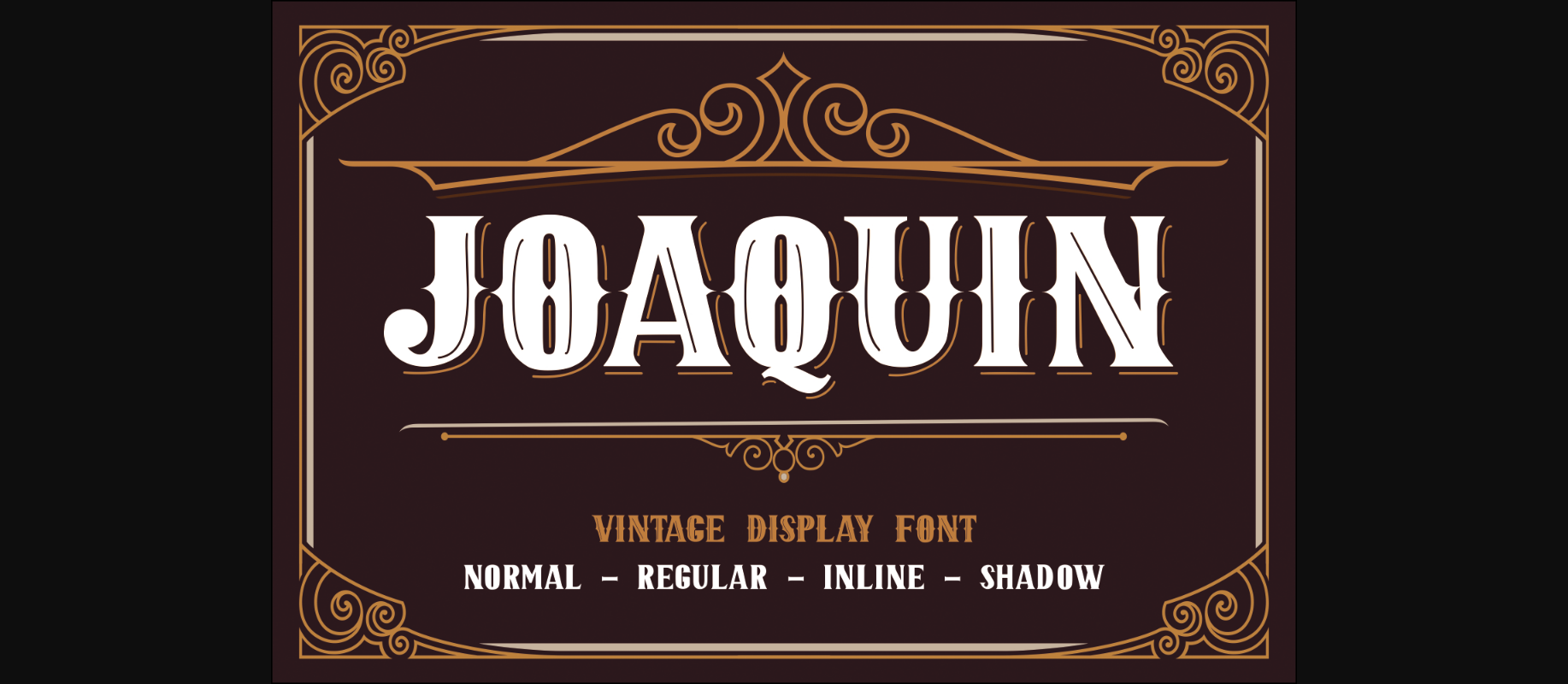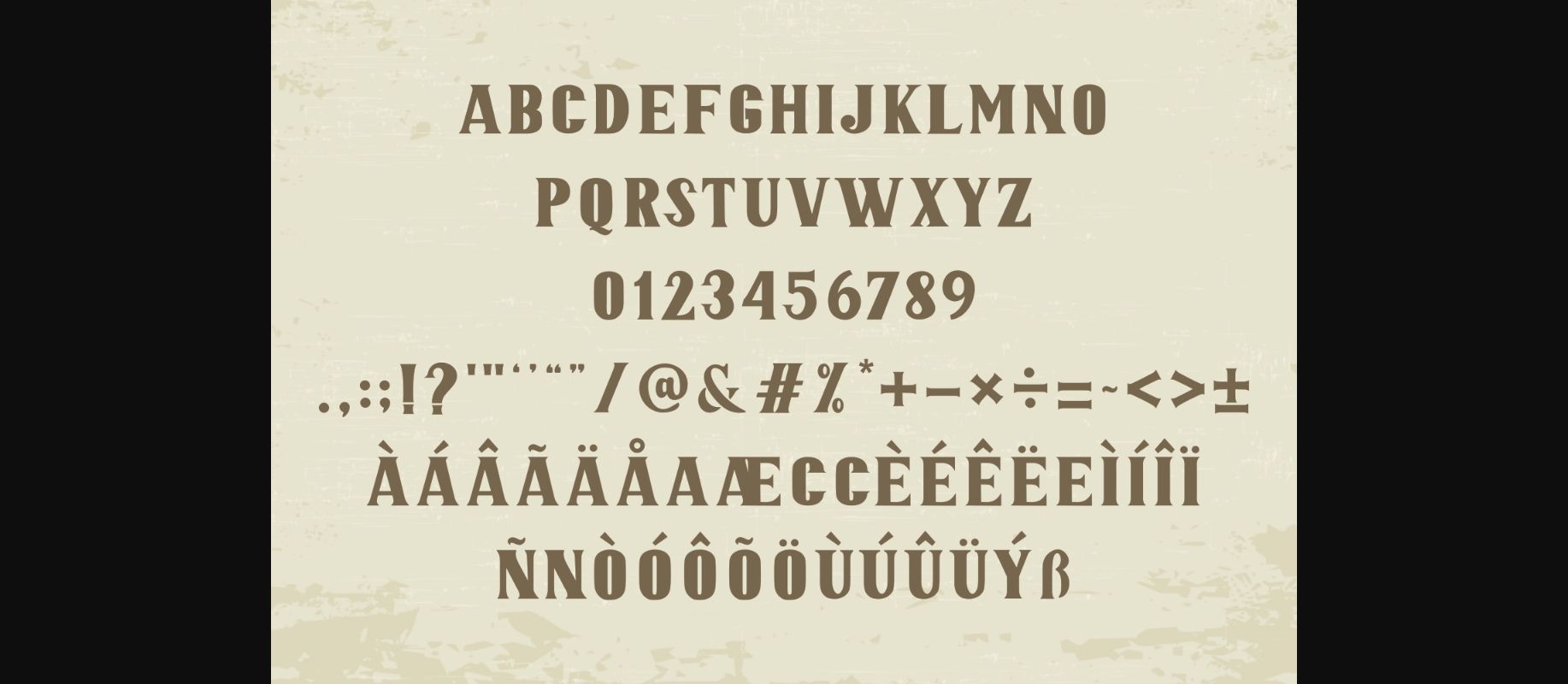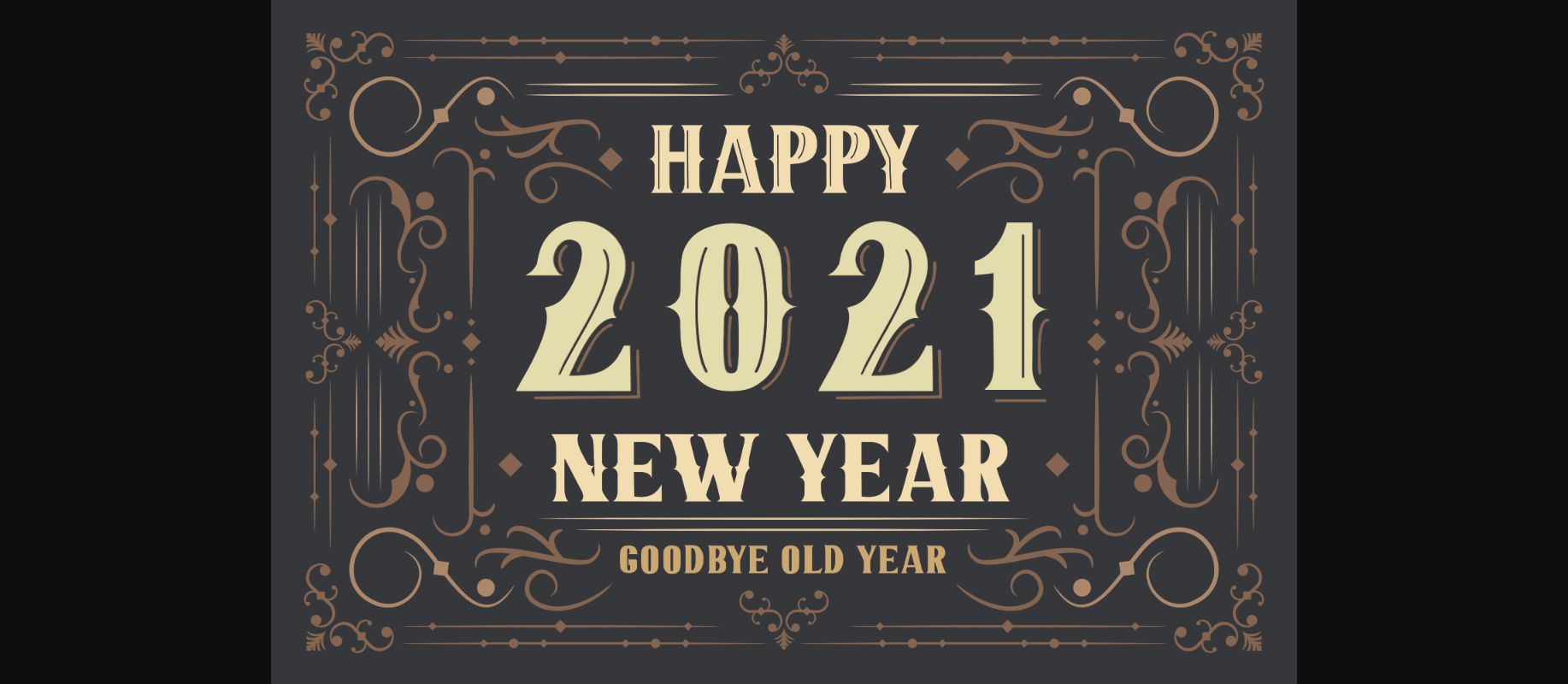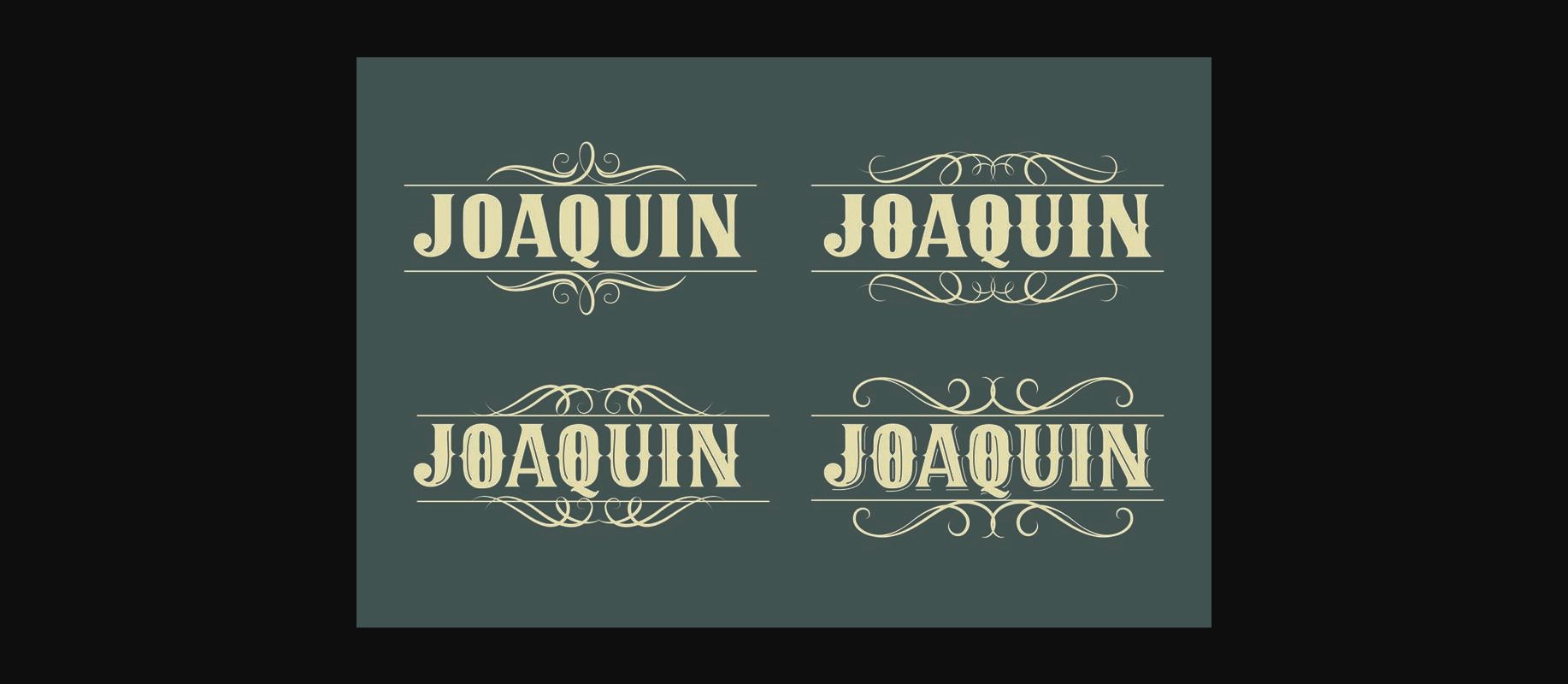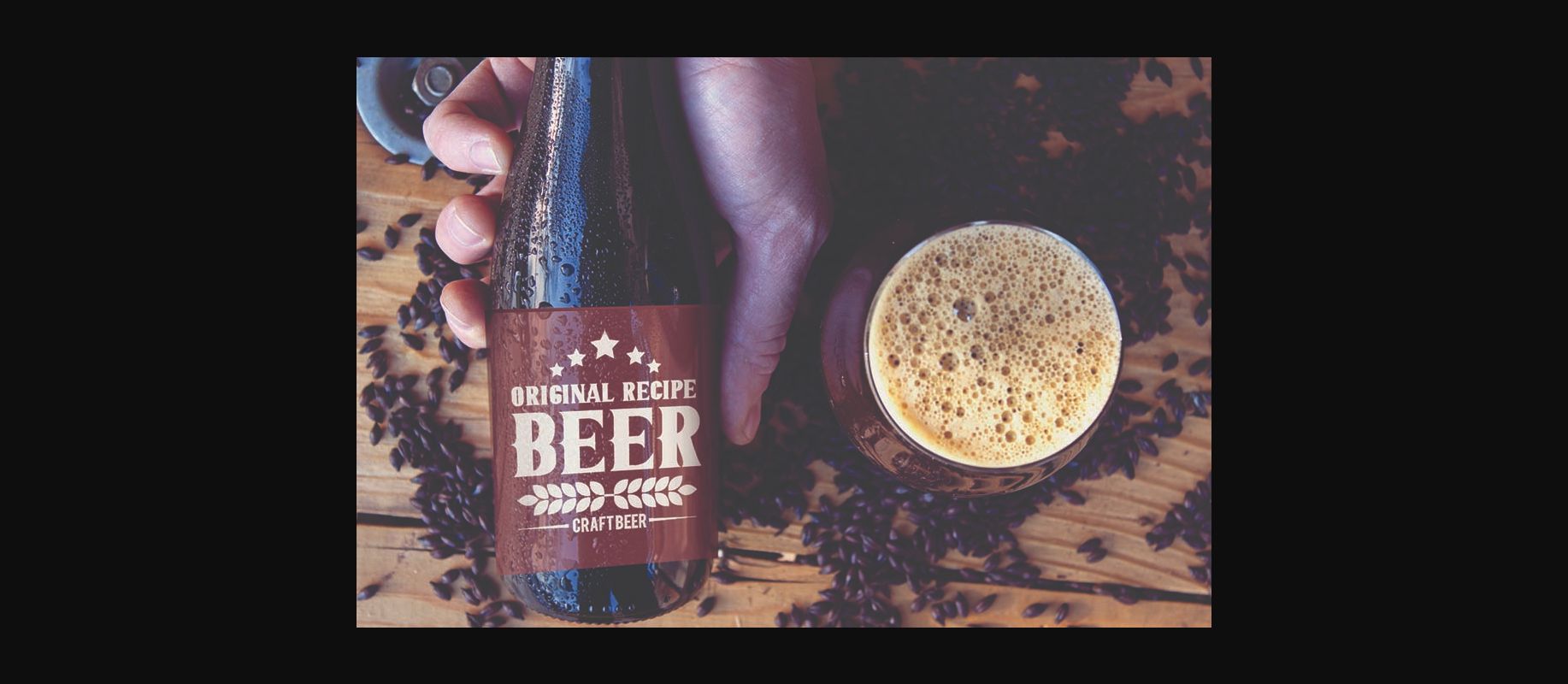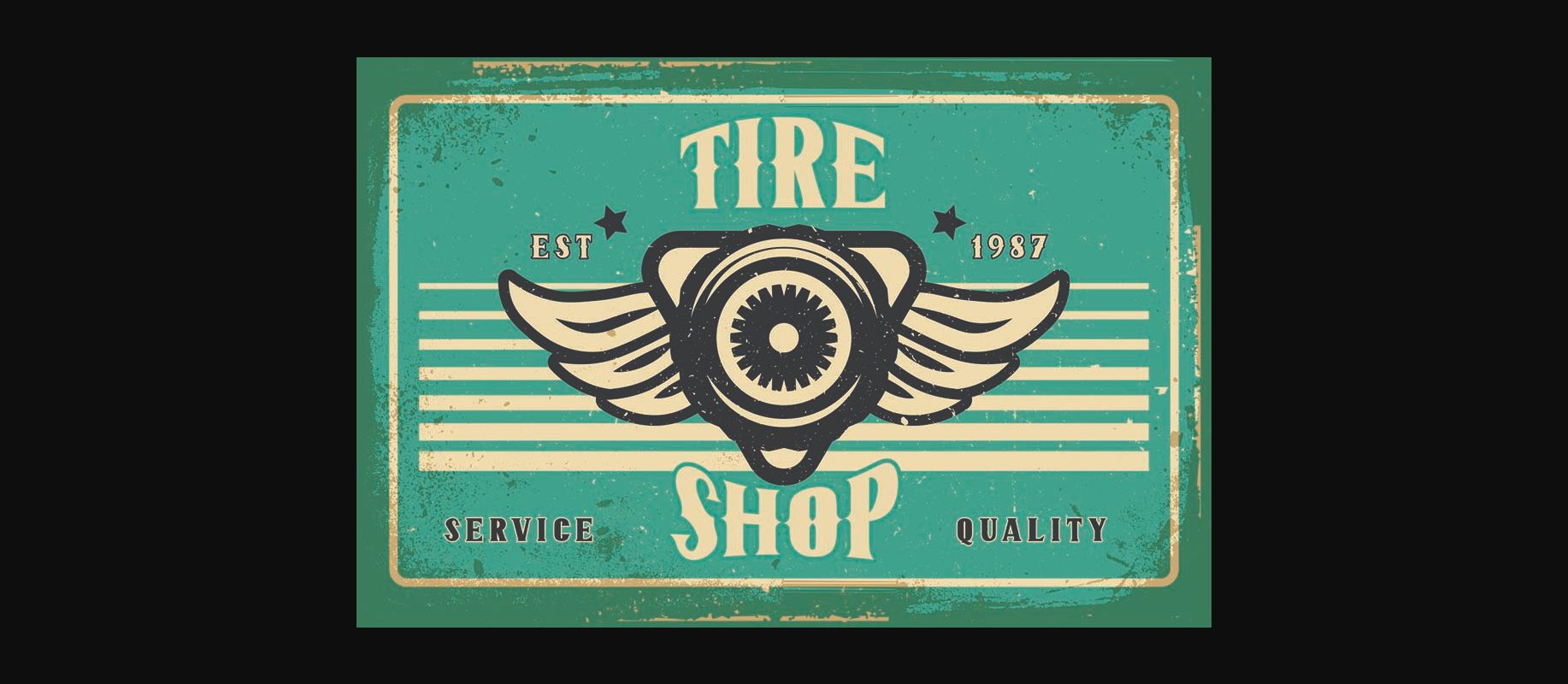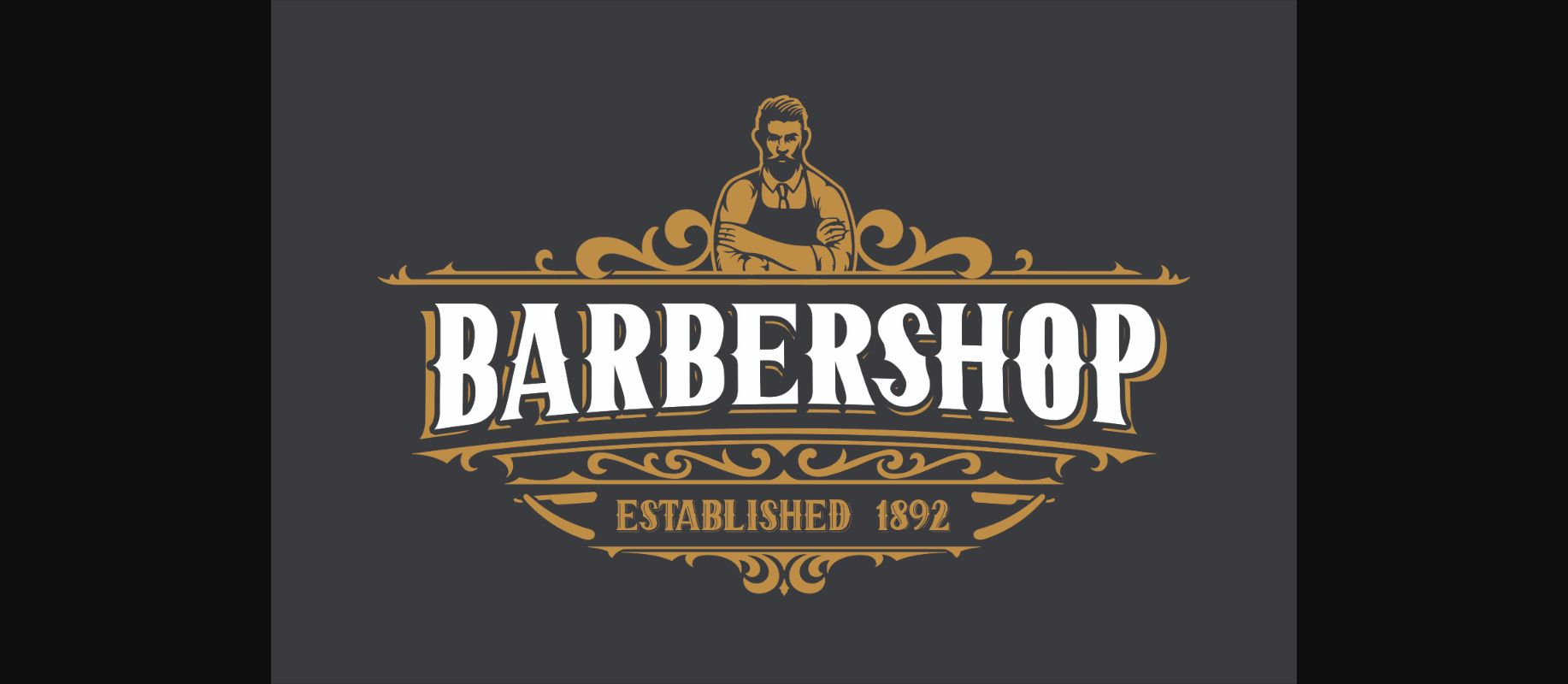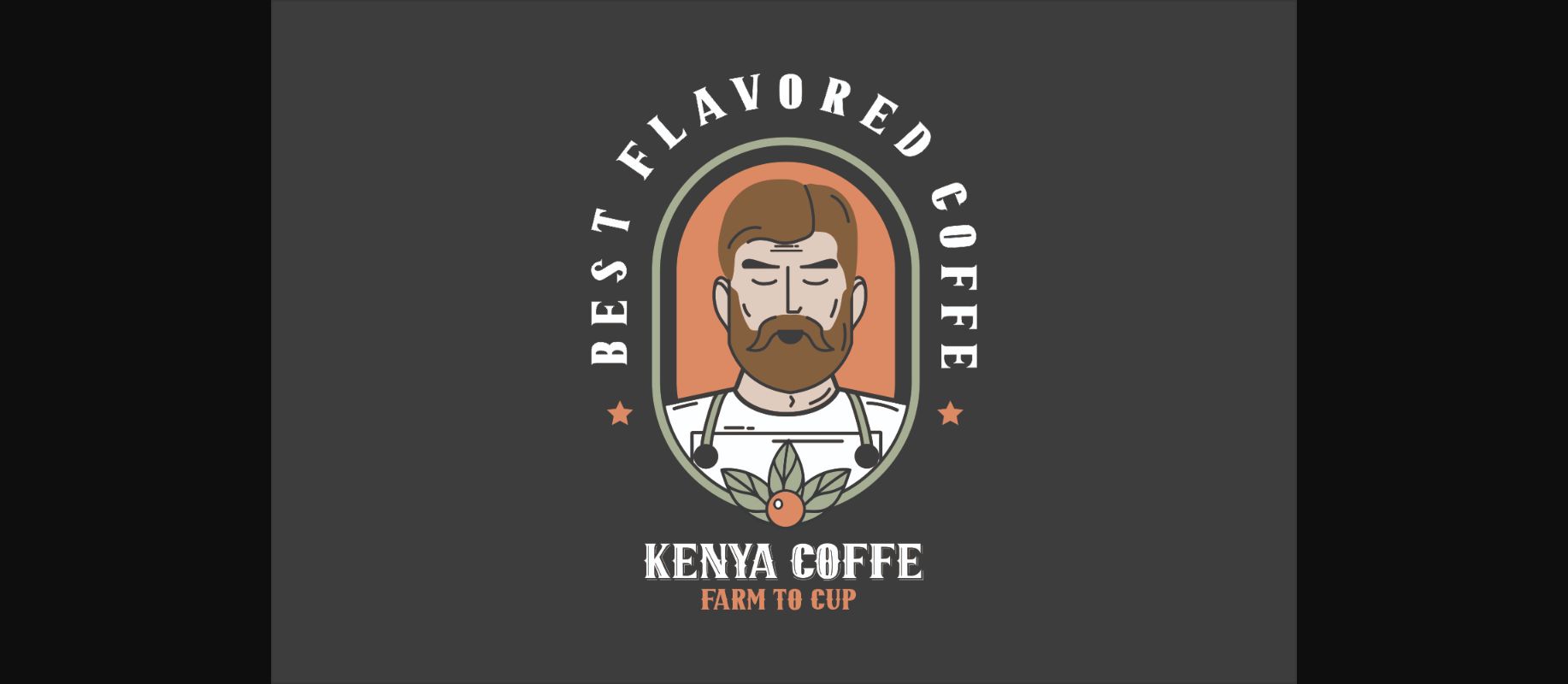
Joaquin Font
About Joaquin Font
Joaquin is a vintage font family. This decorative font is perfect for vintage logo design, label, poster, signage, t-shirt, storefront, headlines or packaging design, greeting cards and more.